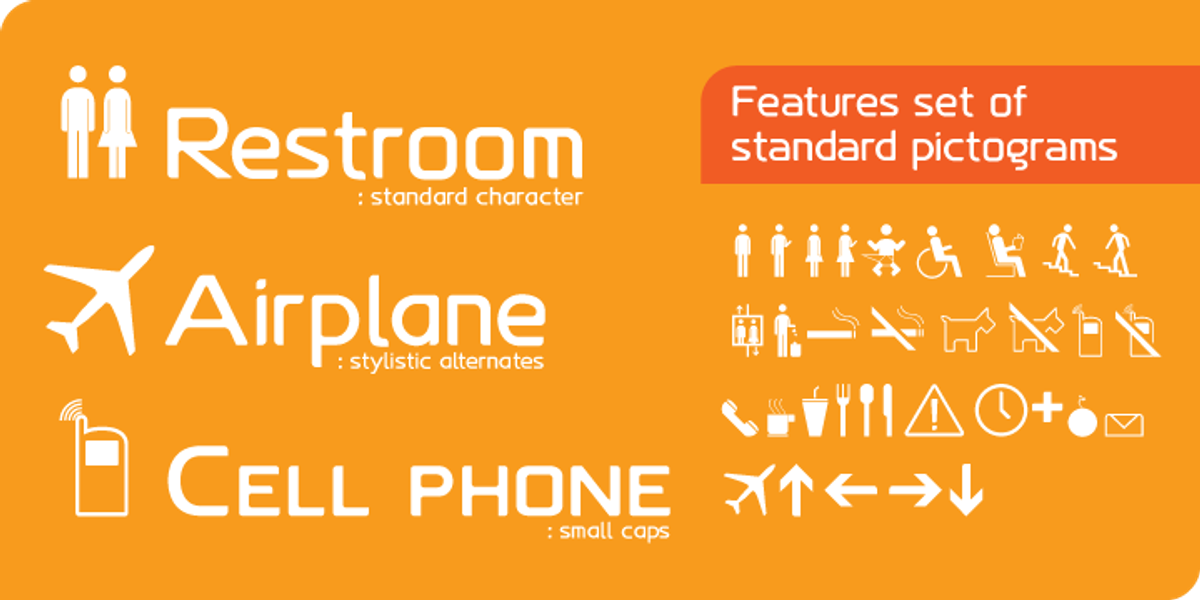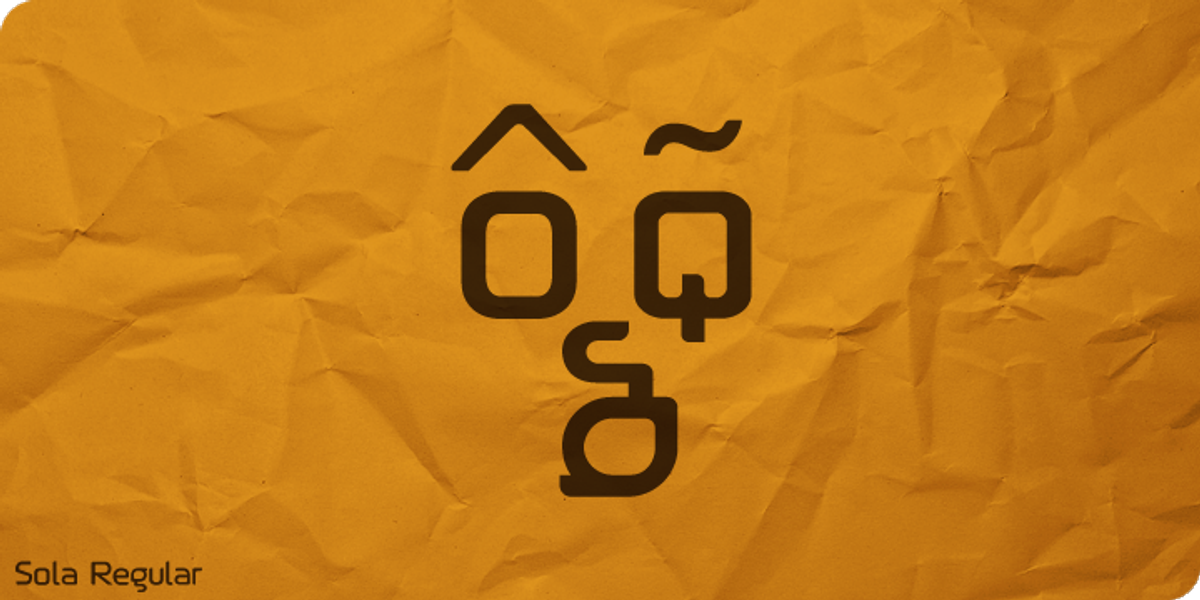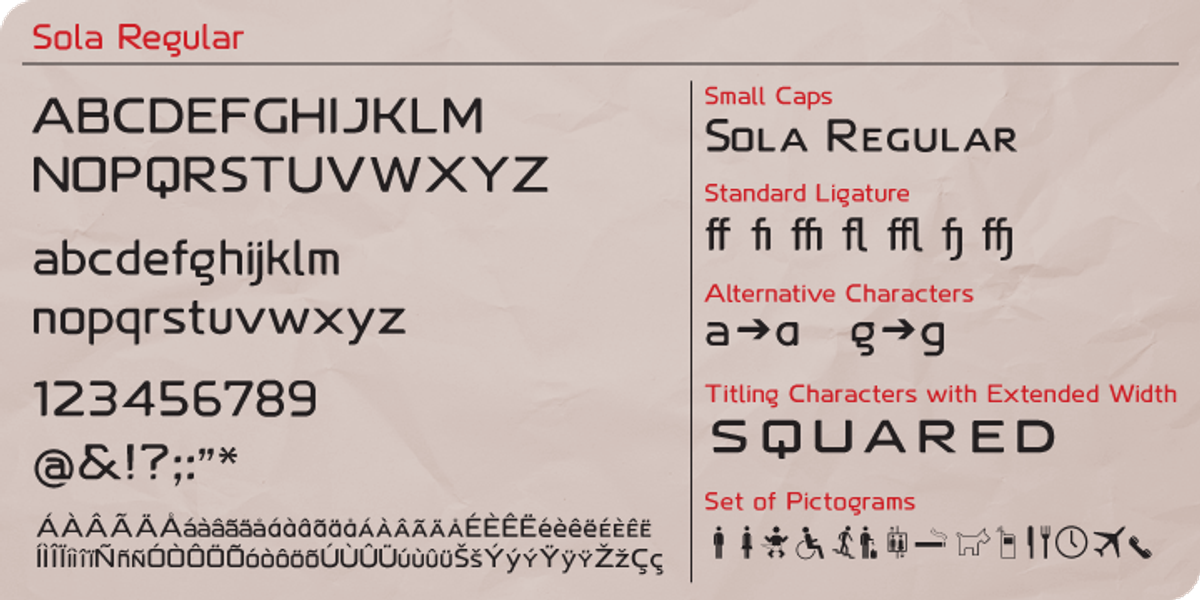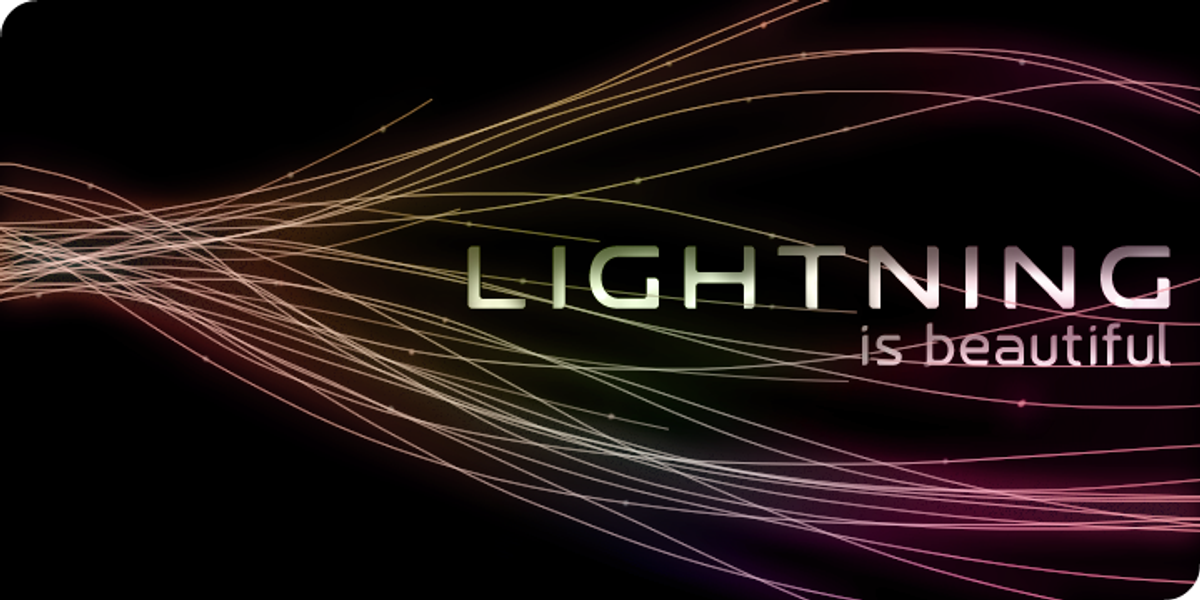
Sola
Sola is a geometric sans-serif font inspired by Bank Gothic. It features rounded corners for a softer look and feel. While the lowercase letters were originally designed square, they were narrowed to maintain sophistication. Sola is versatile and suitable for various applications like posters, flyers, logos, and business cards. It also includes standard ligatures, stylistic alternates, titling characters with extended width, and a set of standard pictograms.